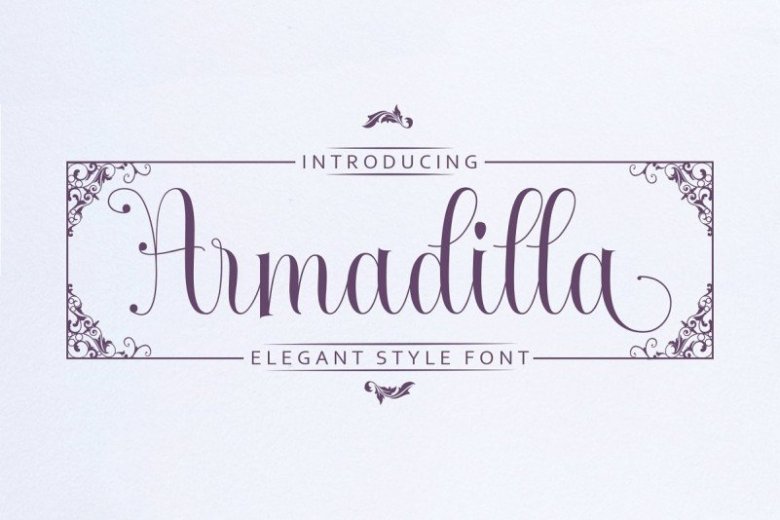
Armadilla Script Font
This is a elegant style font, this is a new modern & fresh calligraphy script with natural style. This font will make your design look elegant, natural and stylish. Presenting Armadilla Font. Armadilla Script Font that is beautiful and unique, it is a model of modern calligraphy typefaces, in combination with a calligraphy writing style. Standart ligatures Discretionary ligatures Initial Forms Terminal Forms Stylistic Alternates Stylistic sets.